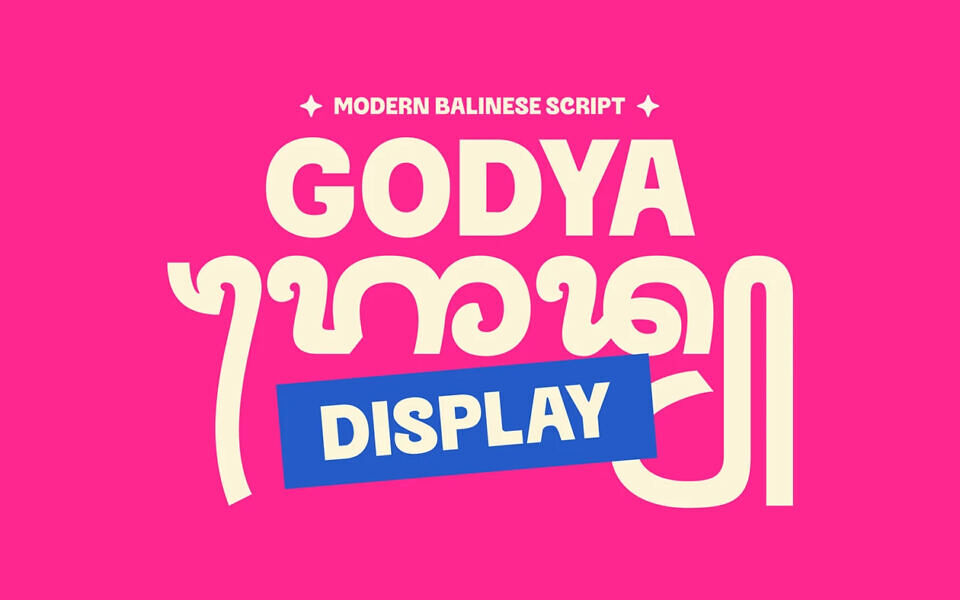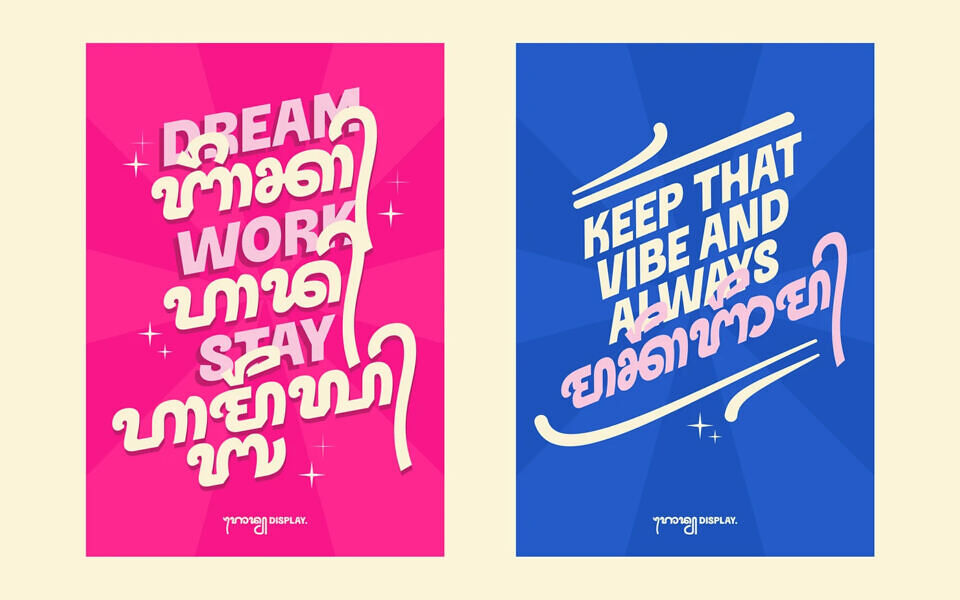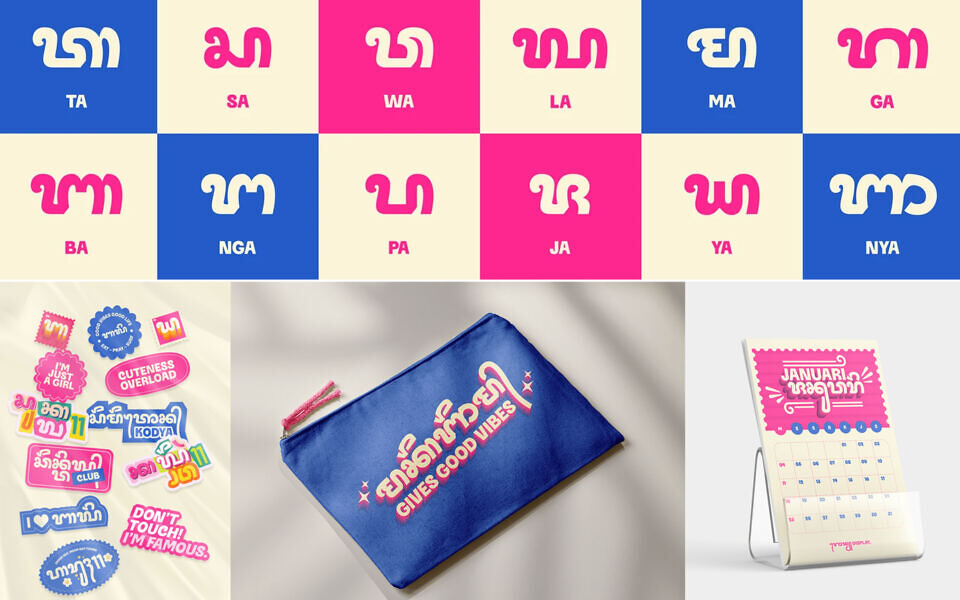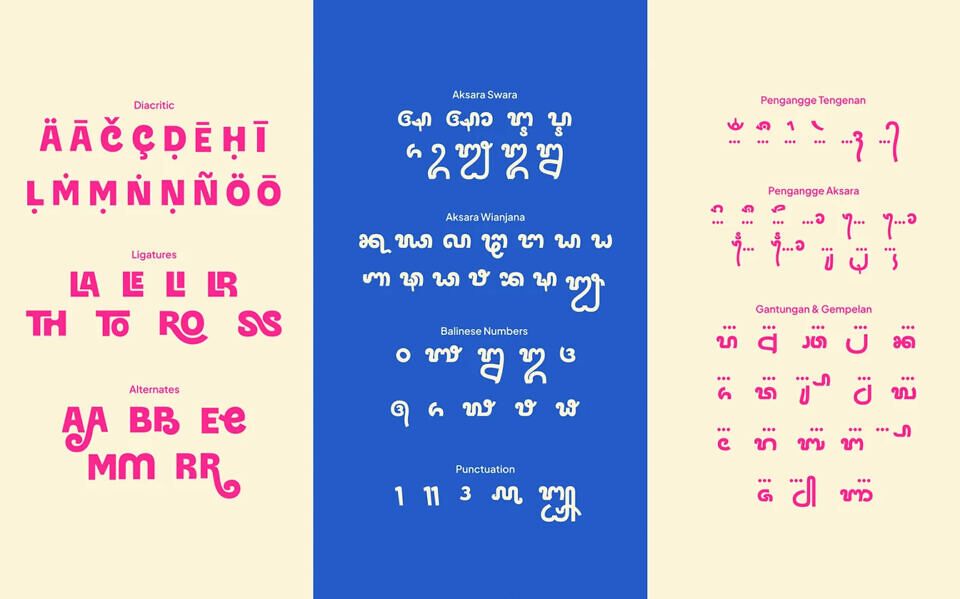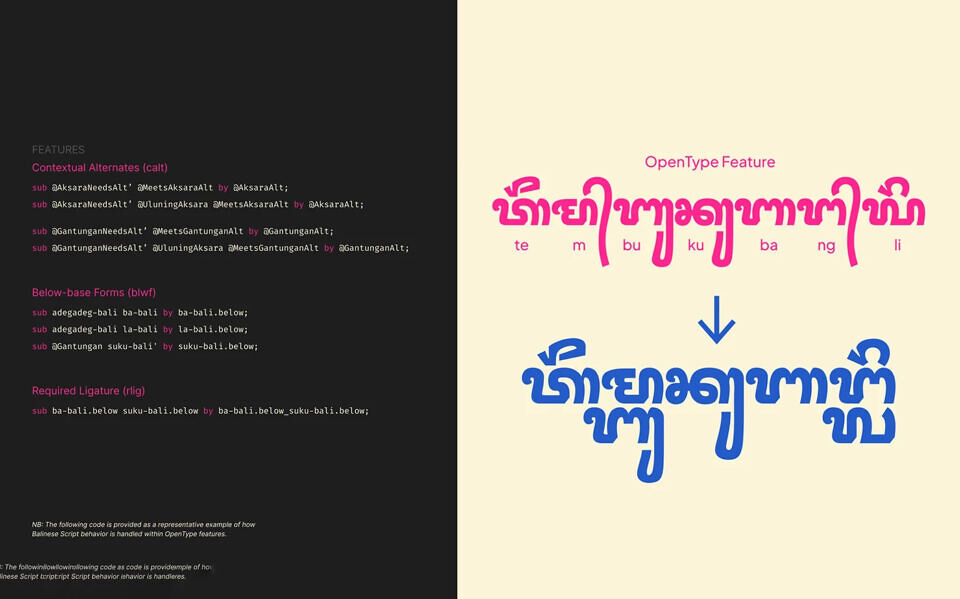
Godya Display is a decorative Balinese script typeface designed to elevate the script’s visual presence alongside Latin typography in contemporary media. Developed from diverse typographic references, it features bold, sturdy stems balanced with playful flexibility.
Explorations include dynamic italic styles, upright straight-backed forms that simplify Gantungan connections, and curved, segmented shapes that expand visual diversity.